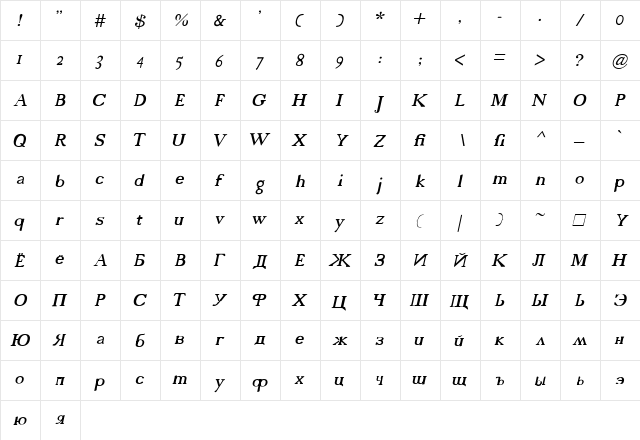
Log-russ-Italic Regular
Design Context for Log-russ-Italic Typeface
Log-russ-Italic is a composed and adaptable typeface that performs quietly and consistently across a wide range of design contexts. The slanted form adds forward momentum and visual energy.
Pro Tip: Use Log-russ-Italic for emphasis, pull quotes, and subheadings where its slanted energy can add rhythm to the layout.